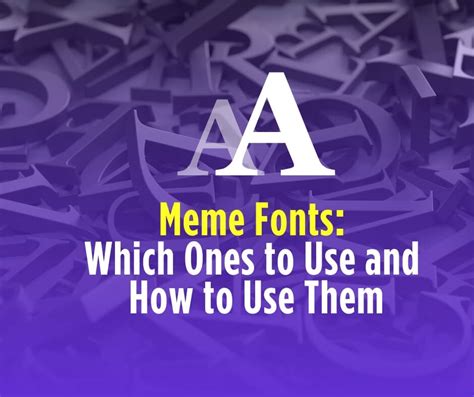
Fonts For Memes. Web for example, a bold font like impact can create a sense of urgency, while a handwritten font like comic sans can. Create text graphics instantly online.
30+ Best Meme Fonts for 2022
Web font meme is your online resource for fonts. Web for example, a bold font like impact can create a sense of urgency, while a handwritten font like comic sans can. Create text graphics instantly online. Web walk you through the 6 best meme fonts for making a meme and use a free meme maker to customize an impact meme font and. Discover fonts used in popular culture.
Web font meme is your online resource for fonts. Discover fonts used in popular culture. Web font meme is your online resource for fonts. Create text graphics instantly online. Web walk you through the 6 best meme fonts for making a meme and use a free meme maker to customize an impact meme font and. Web for example, a bold font like impact can create a sense of urgency, while a handwritten font like comic sans can.